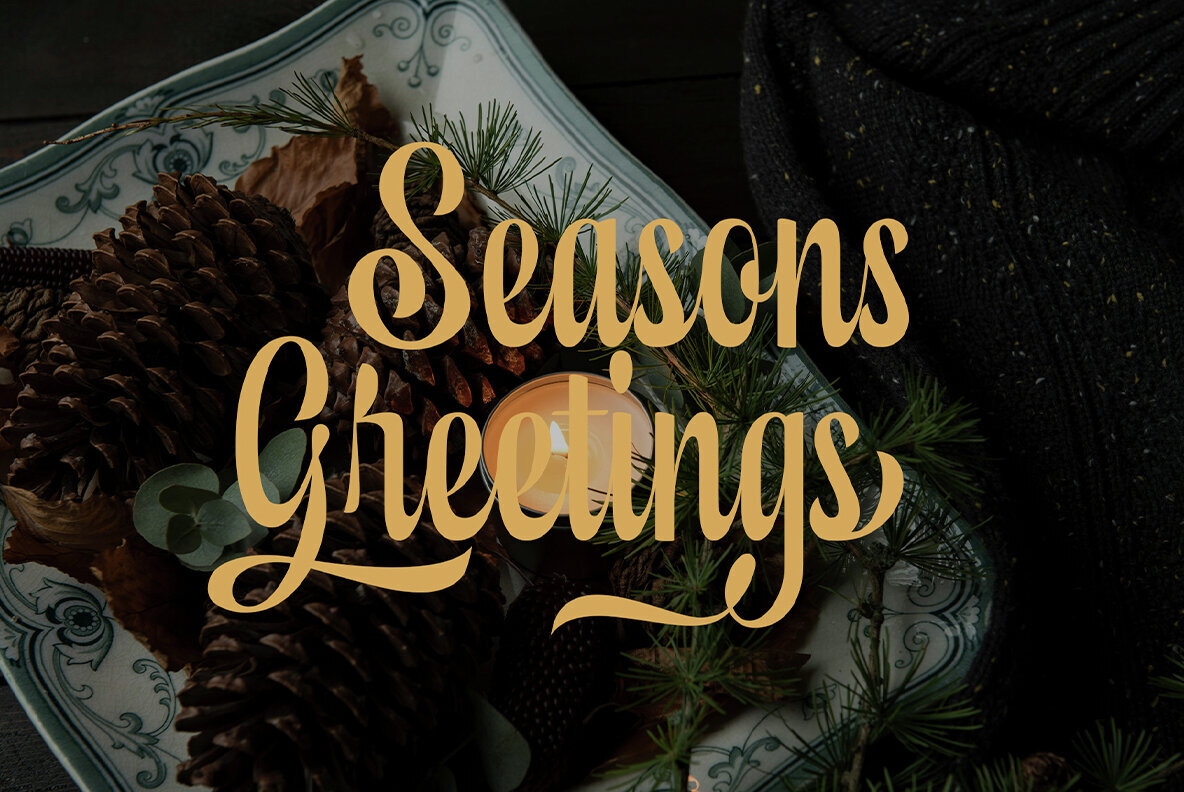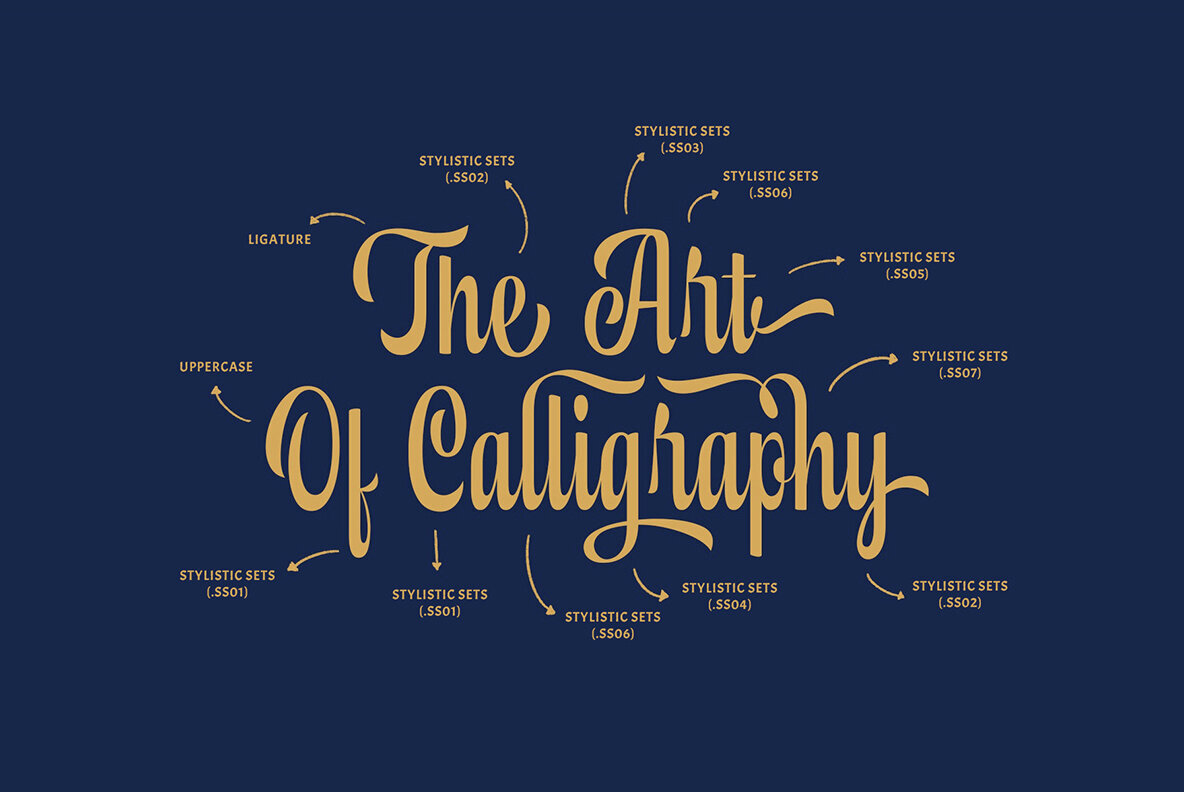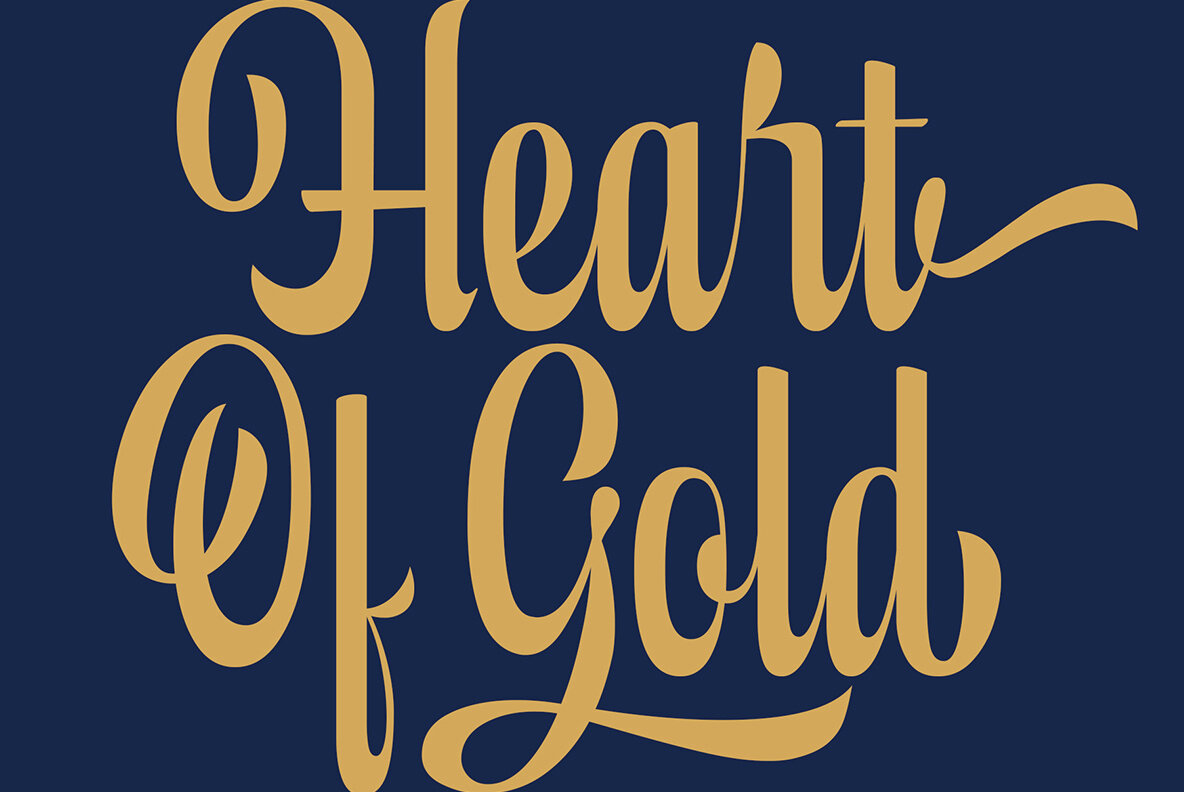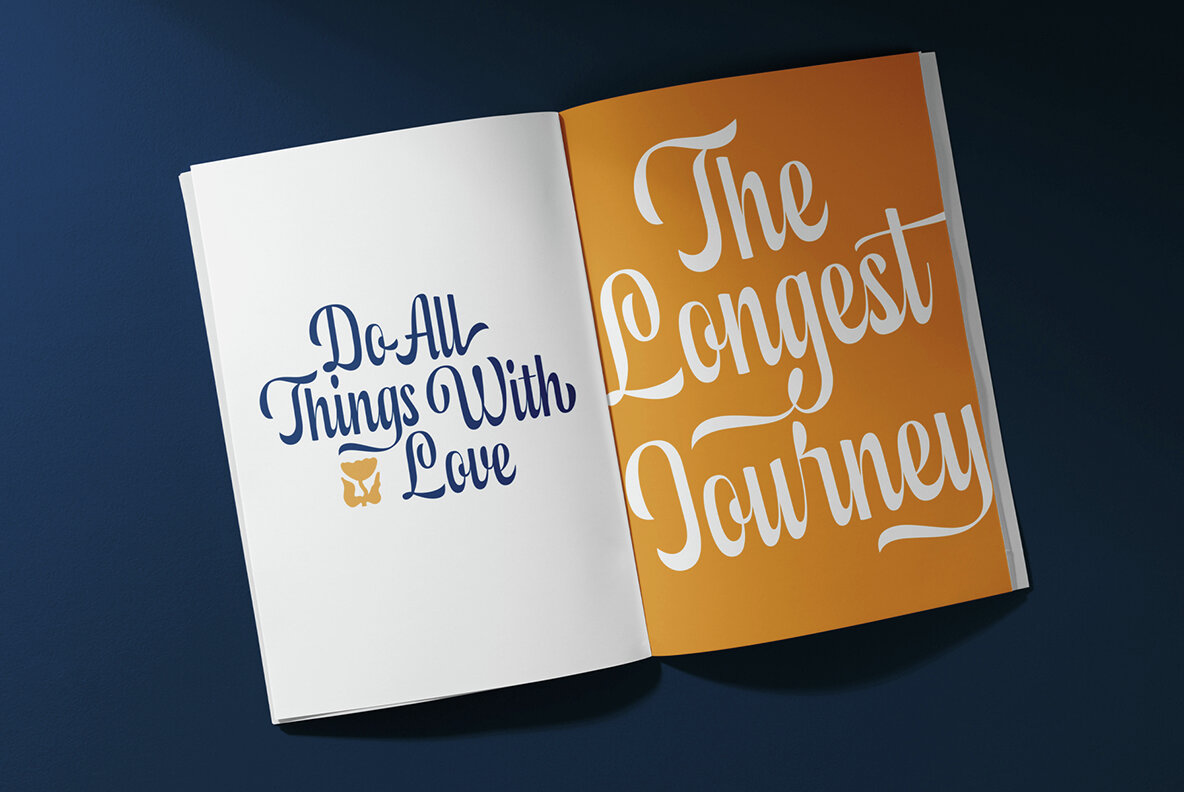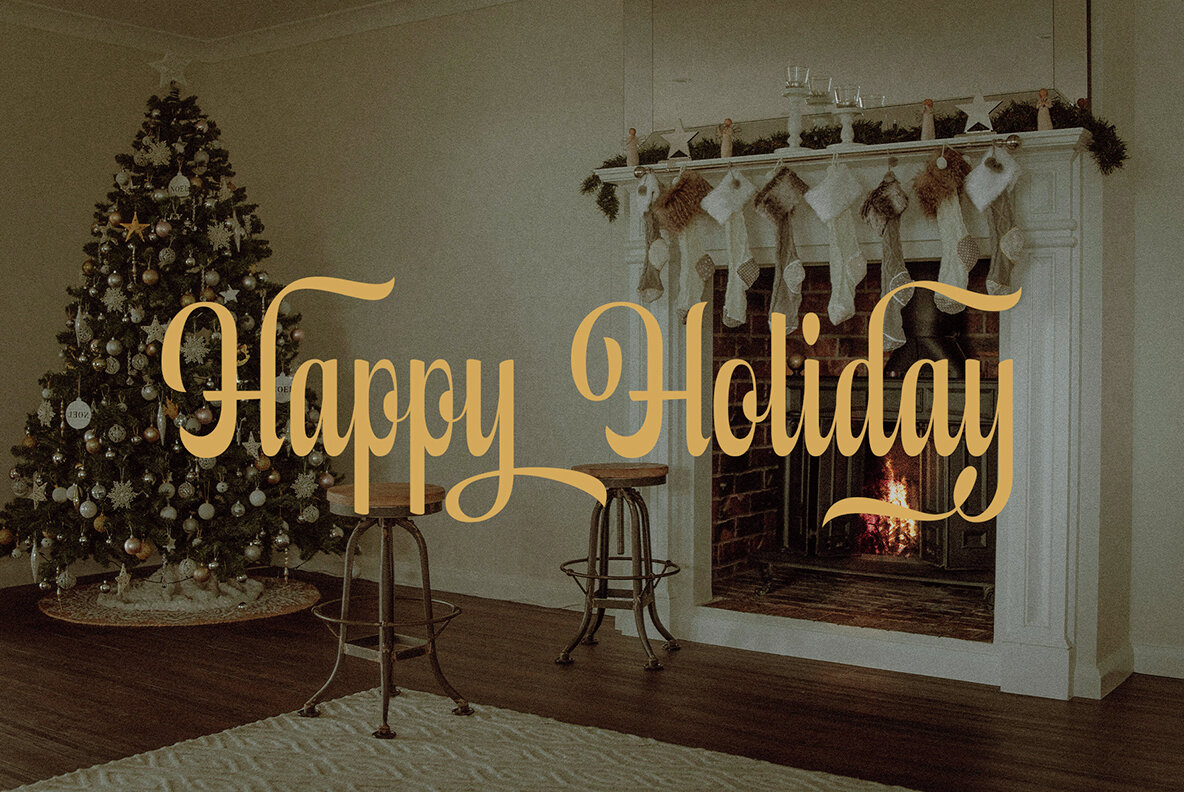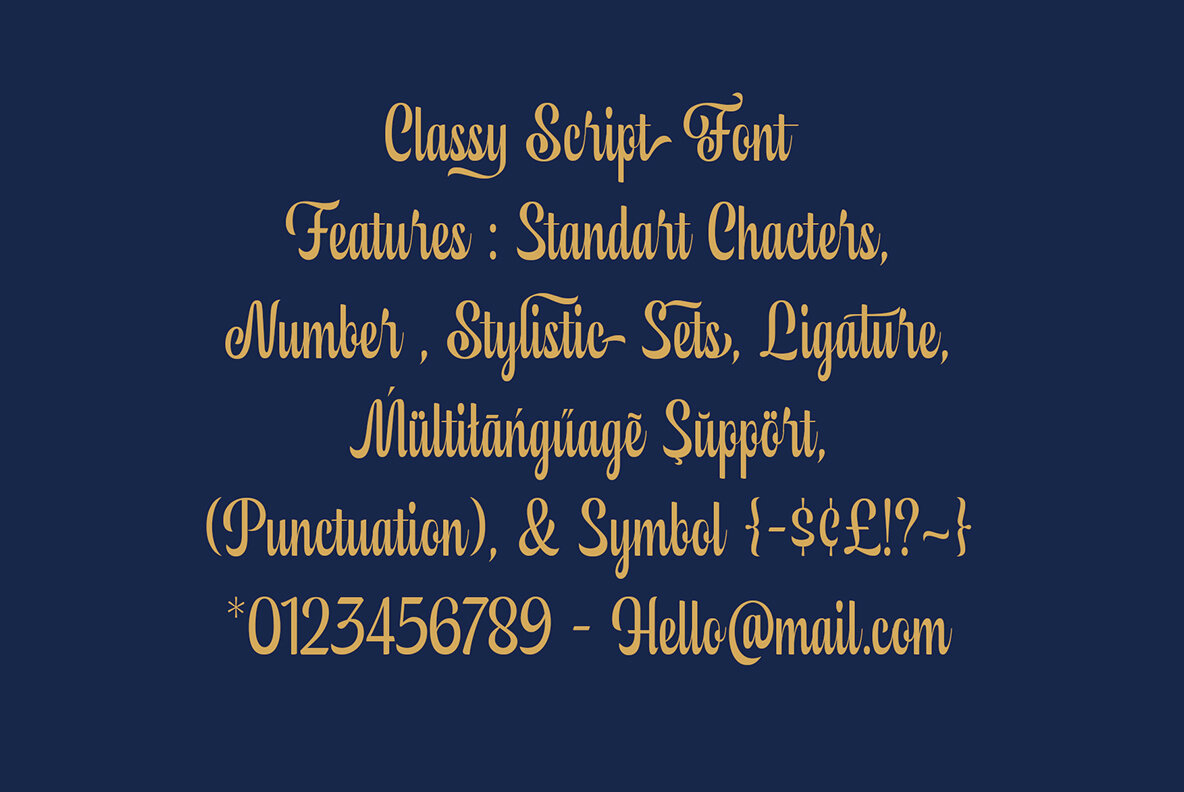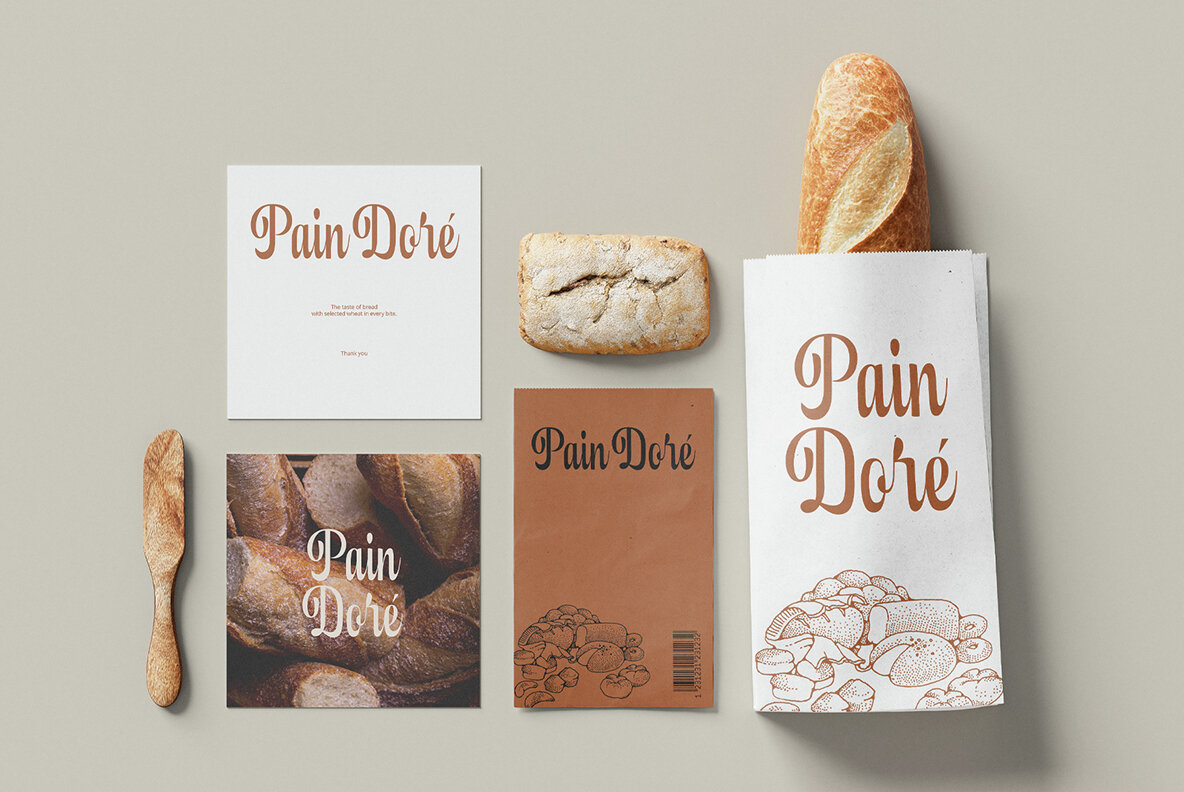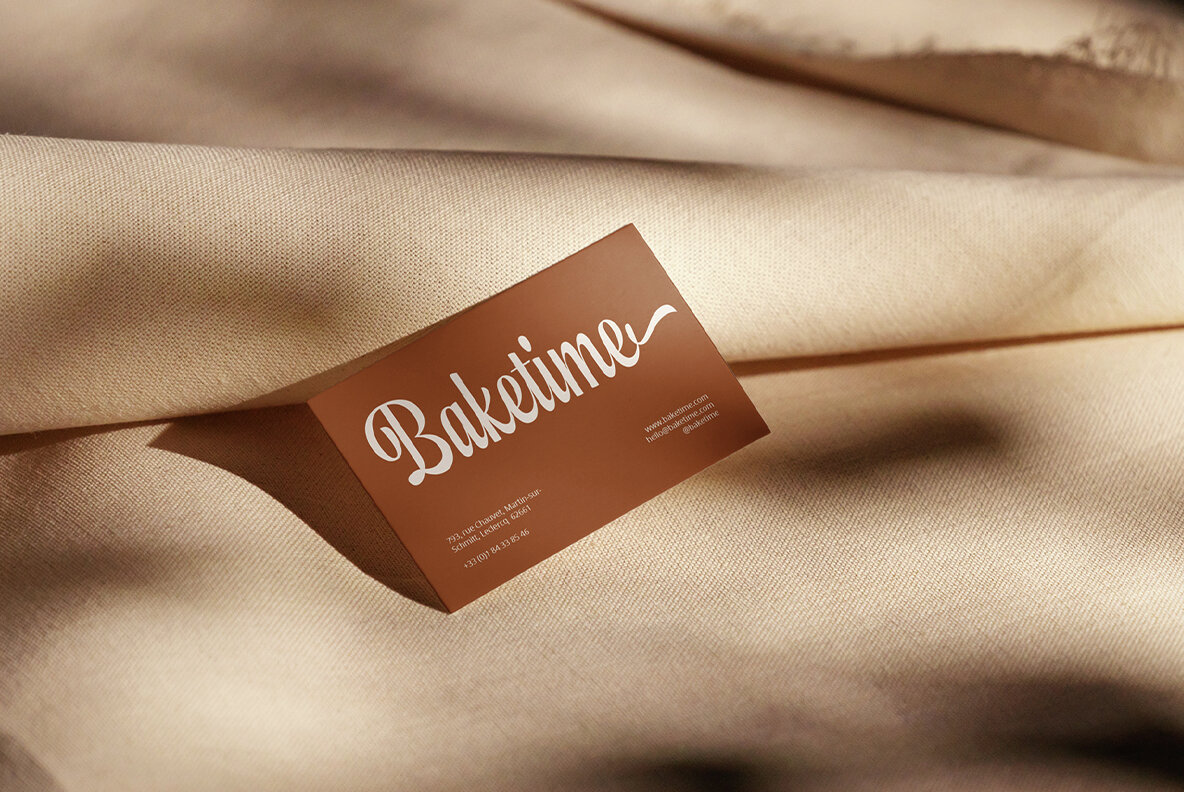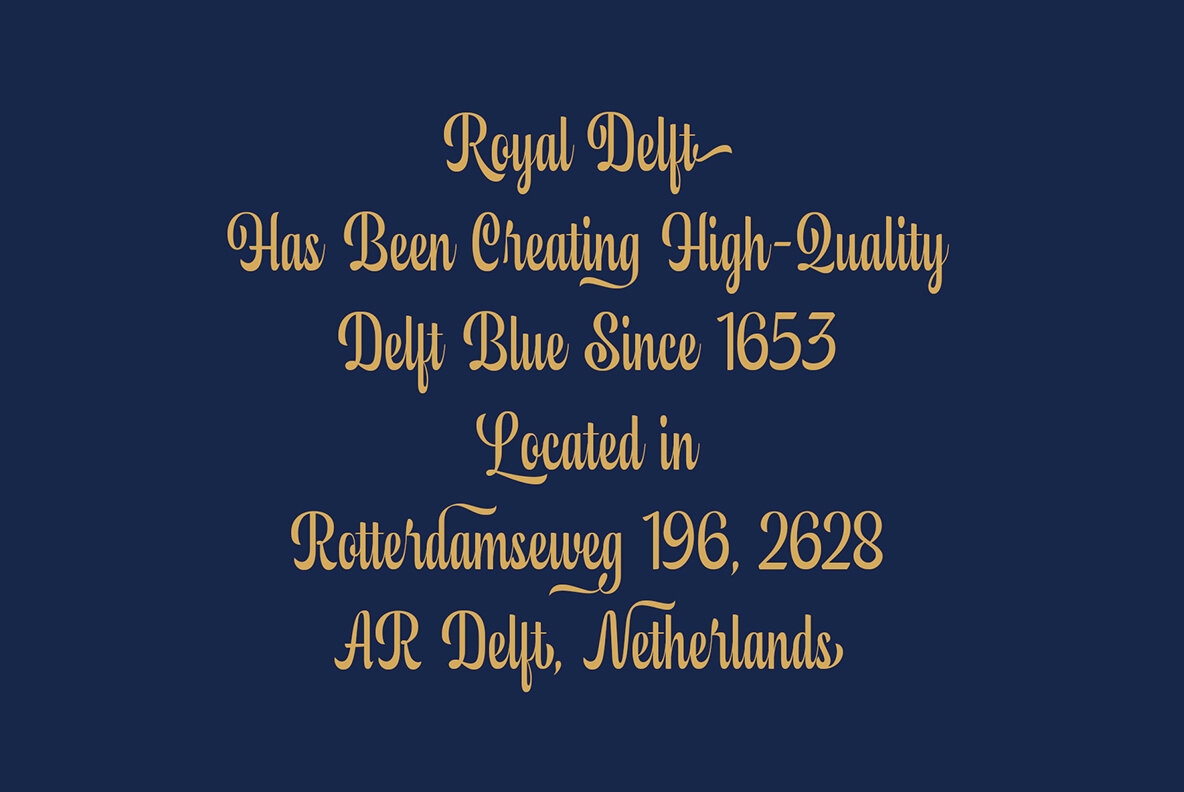
ED Fenelton Font
ED Fenelton Regular
Fenelton is a script font that combines casual and elegant impressions. Equipped with OpenType features such as Stylistic Set ( 180+), and Ligature, and also multi-language support, it allows you to create a variety of interesting writing displays according to your design needs with this font.